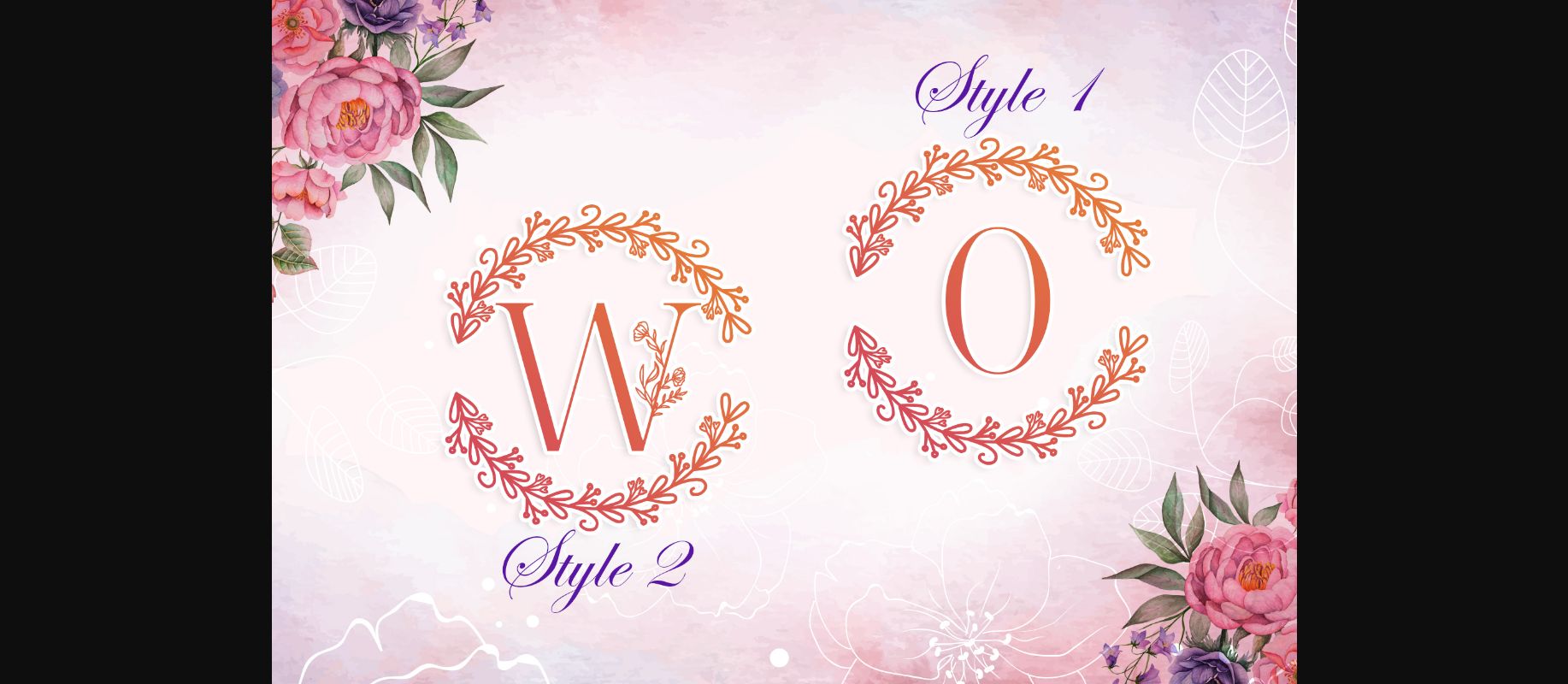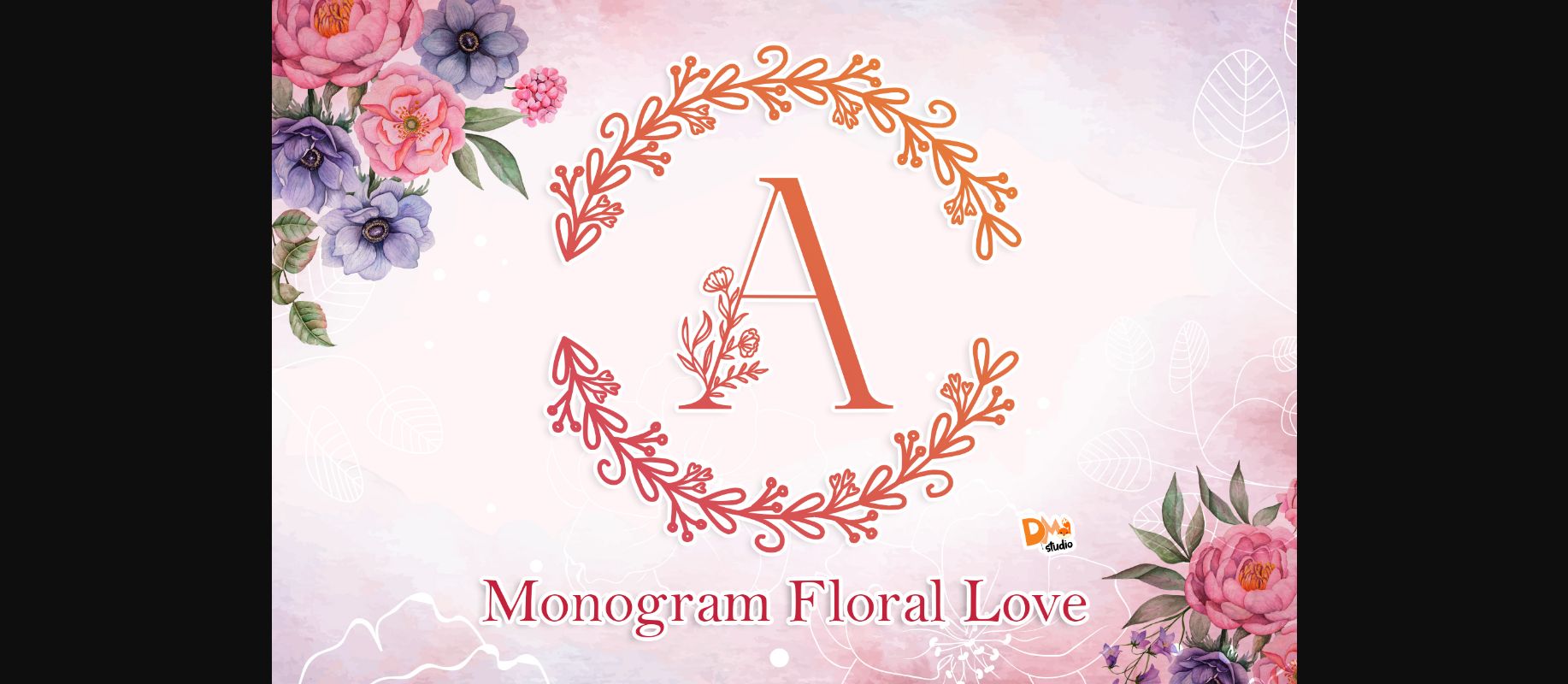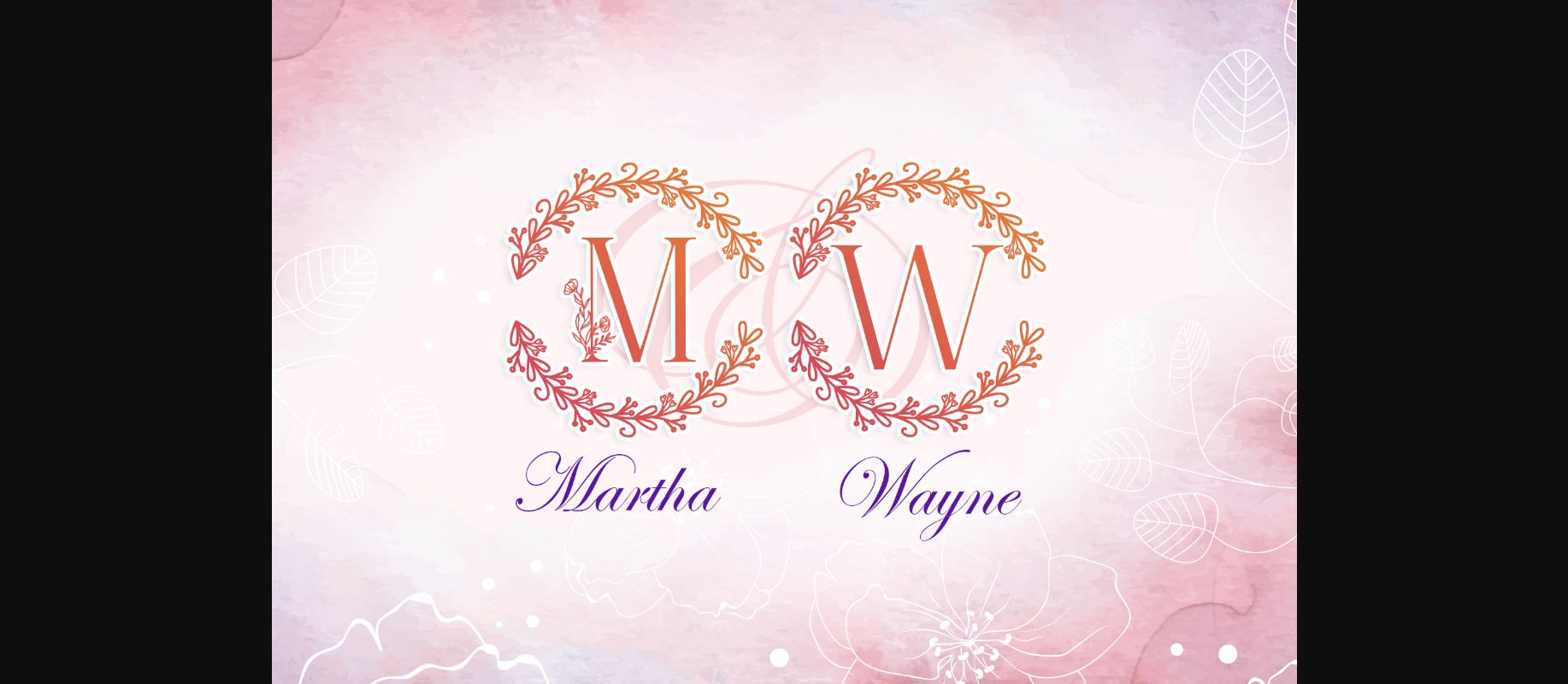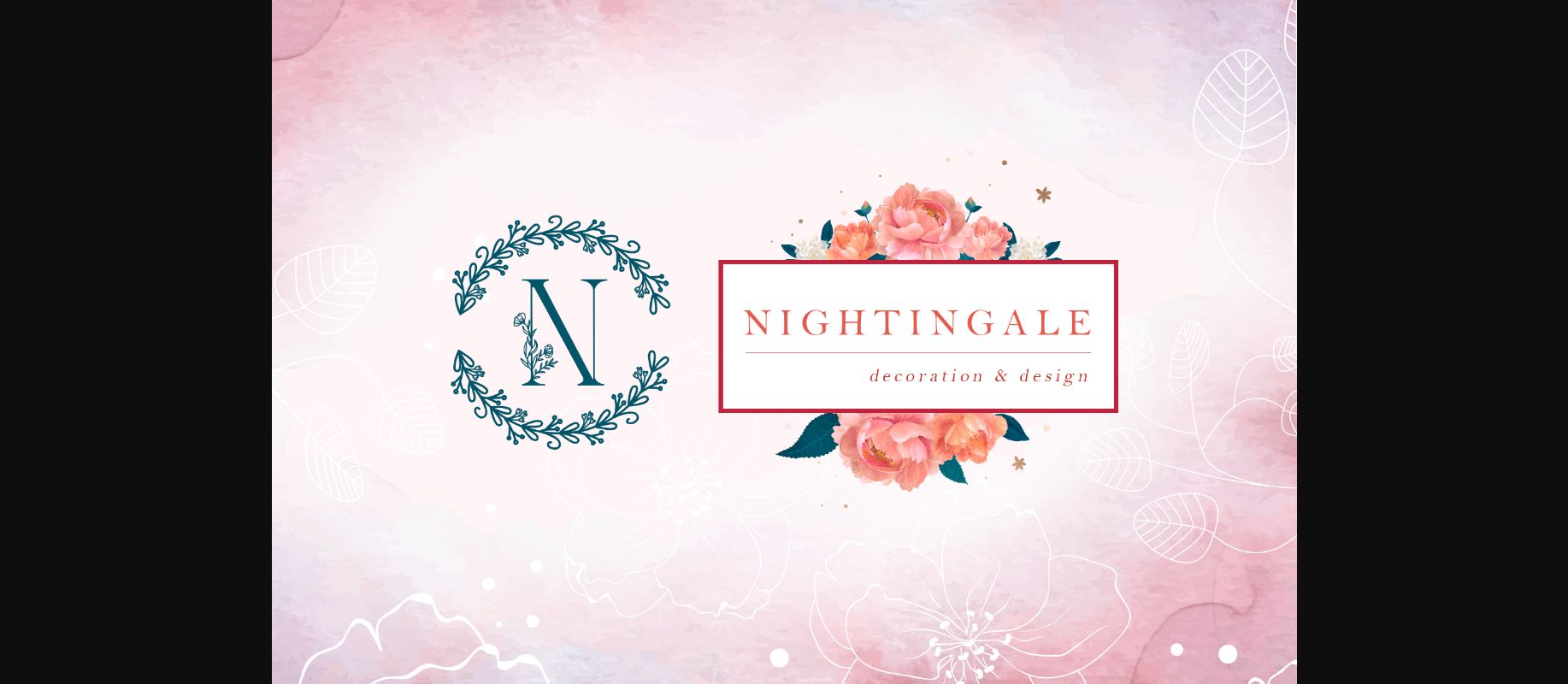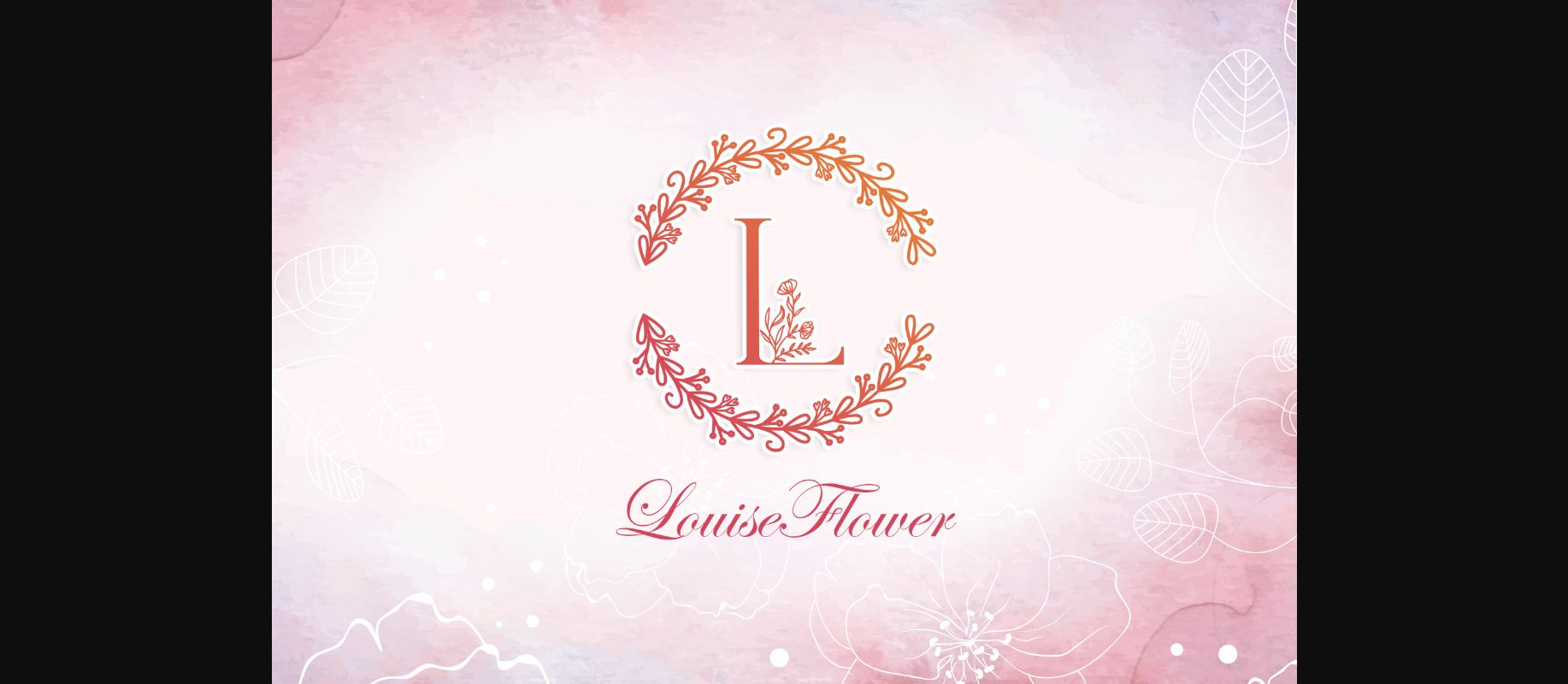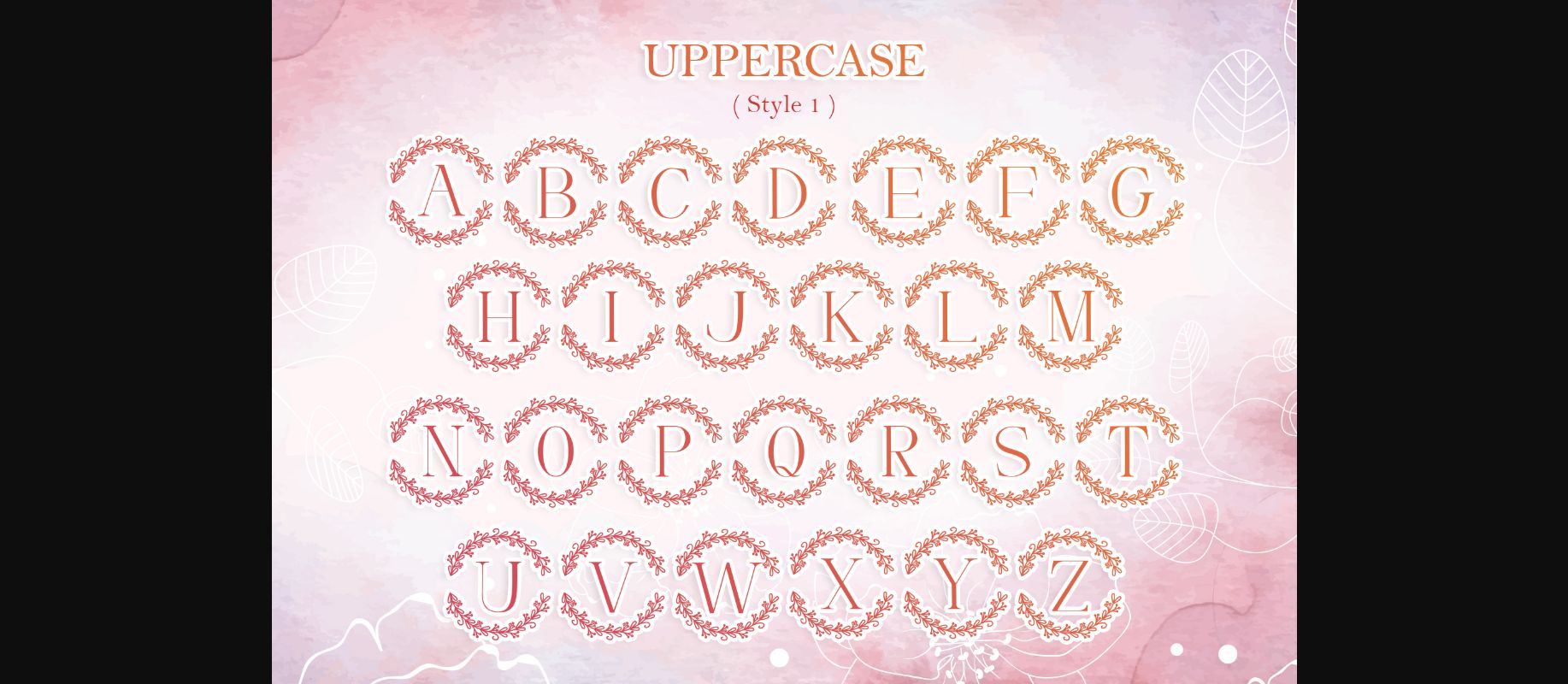
Monogram Floral Love Font
About Monogram Floral Love Font
Monogram Floral Love is a graceful decorative font, featuring lovely leaf ornaments. Fall in love with its authentic feel and use it to create gorgeous wedding invitations, beautiful stationary art, eye-catching social media posts, and cute greeting cards.